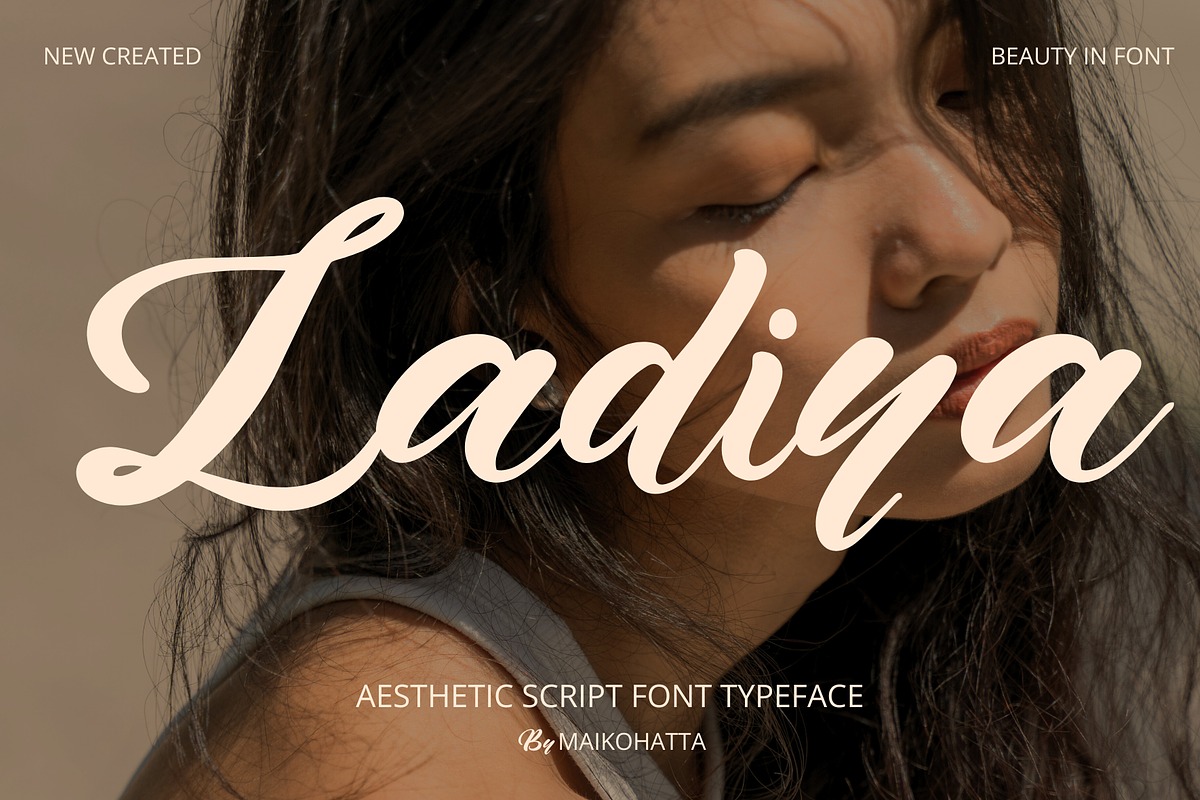
Ladiya Font
Ladiya Font is a versatile font designed to adapt beautifully across different design styles, offering dependable readability and balance. Ladiya is an elegant and aesthetic script font with smooth curves and a natural handwriting flow. Designed to express beauty, softness, and modern elegance, this font brings a distinctive and clean style to your typography.
This font blends modern calligraphy with a minimalist aesthetic, making it versatile, timeless, and visually appealing across digital and print projects.